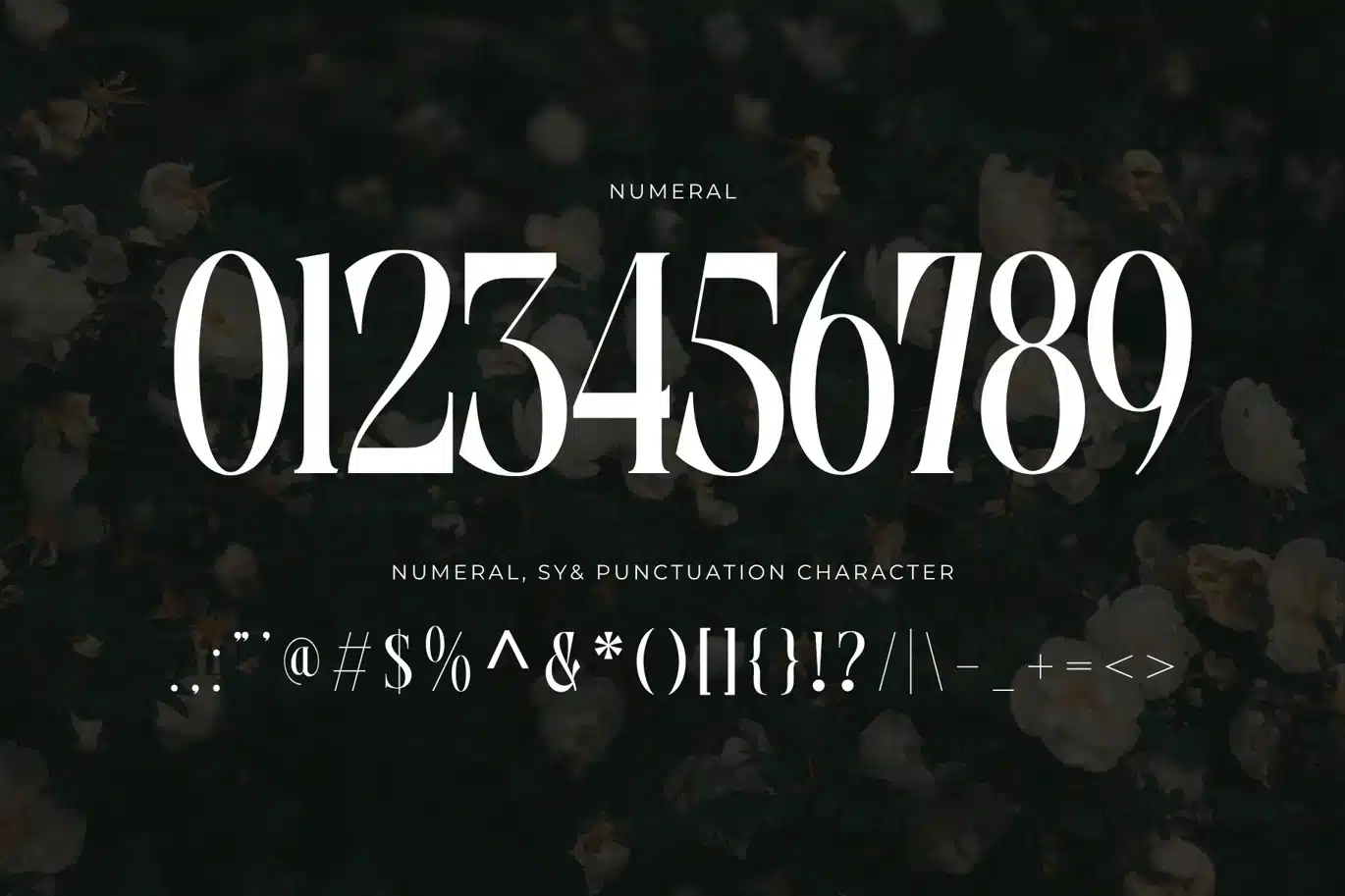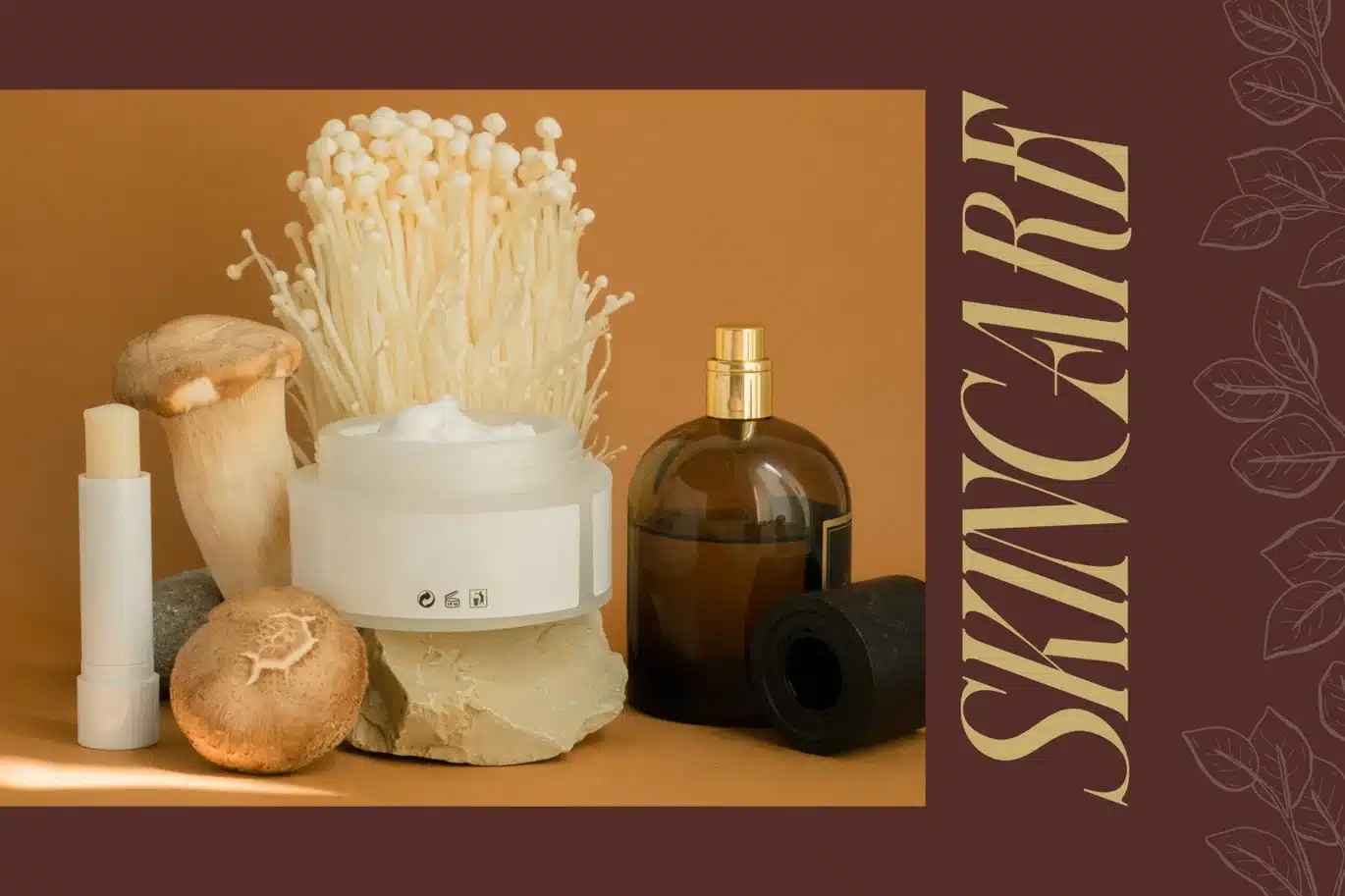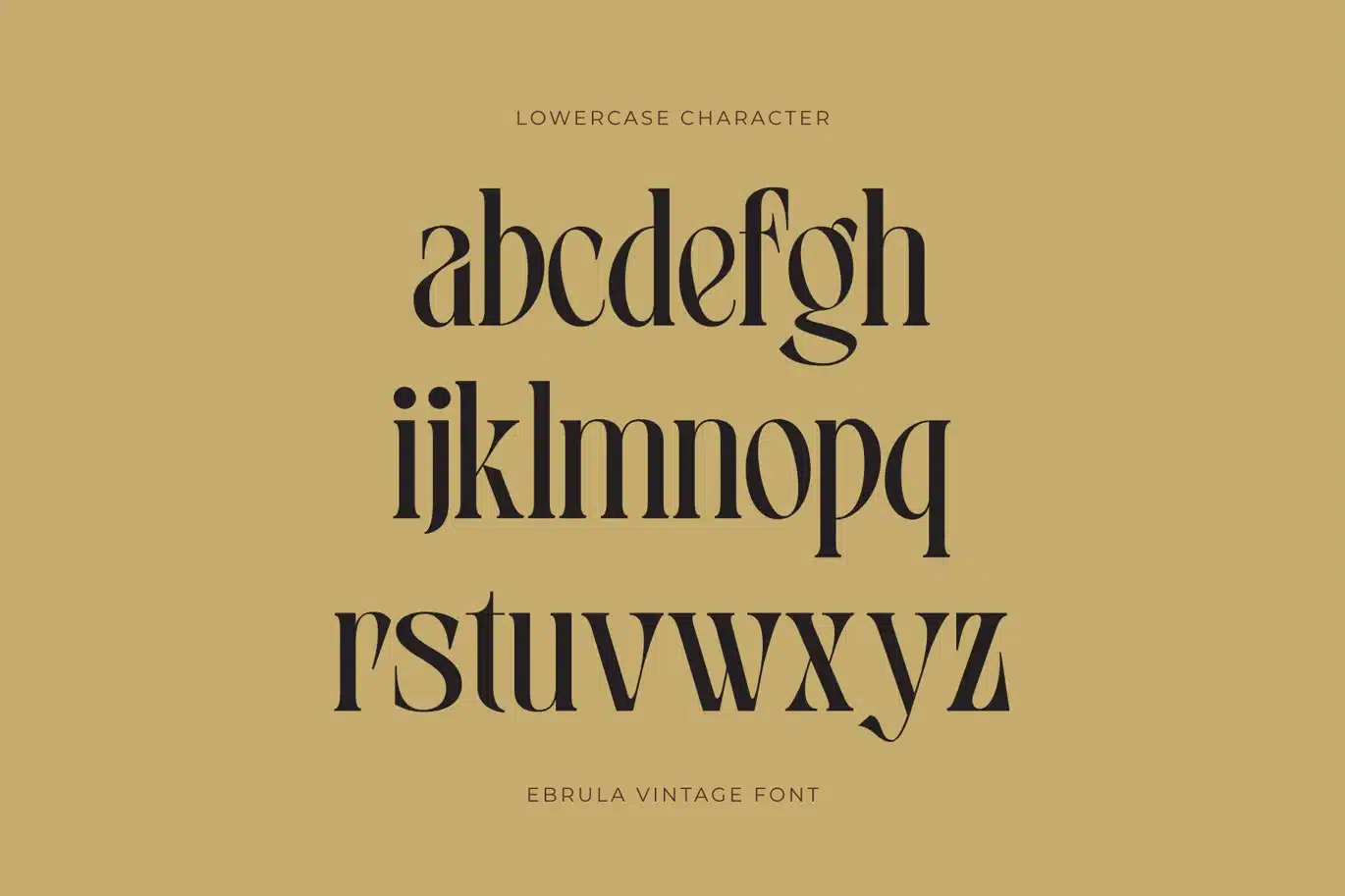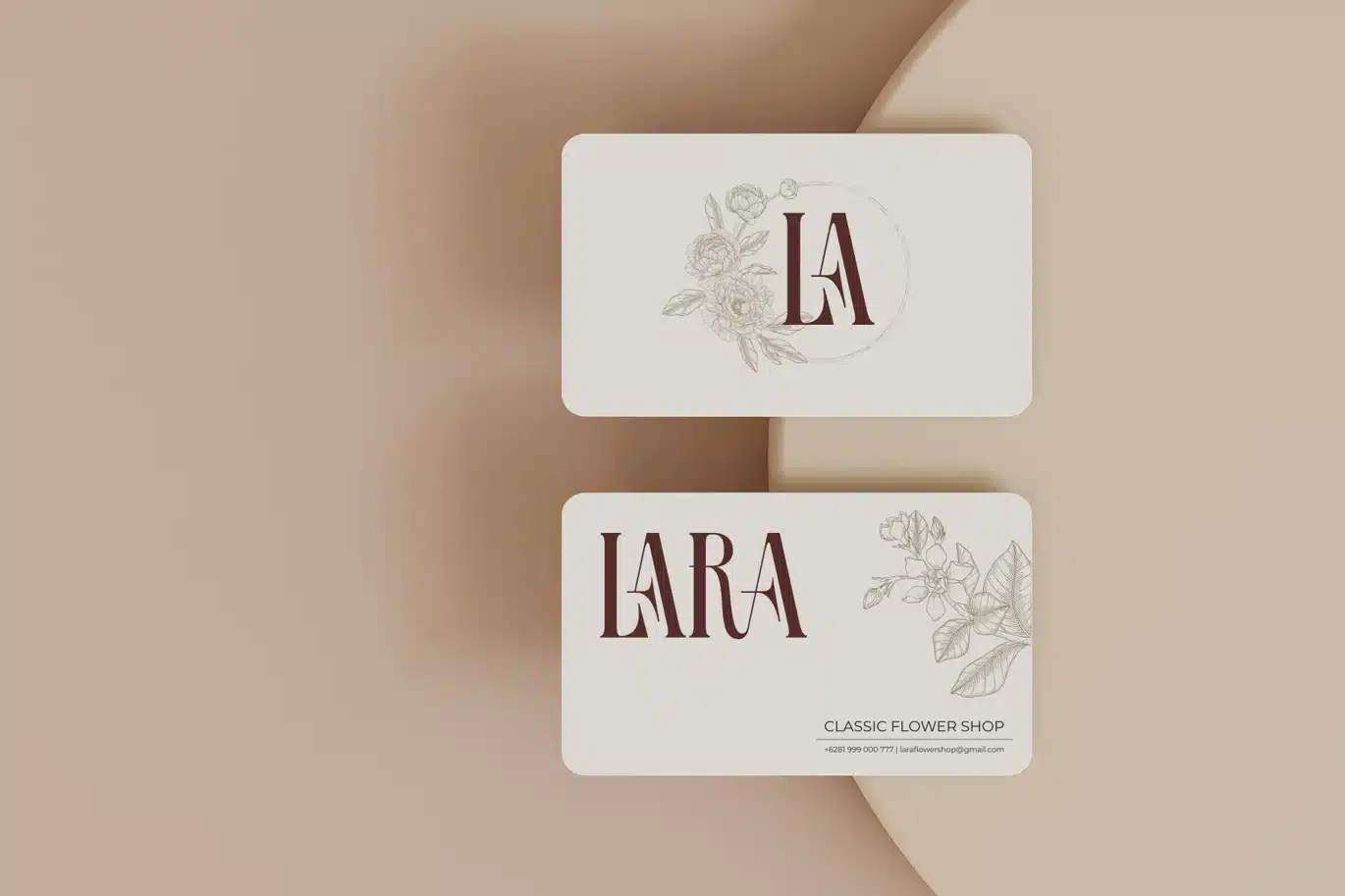
Ebrula Vintage – Classic Serif Font
Ebrula Vintage - Classic Serif Font
Ebrula Vintage offers beautiful typographic harmony for a diversity of design projects, including logos & branding, social media posts, advertisements & product designs.